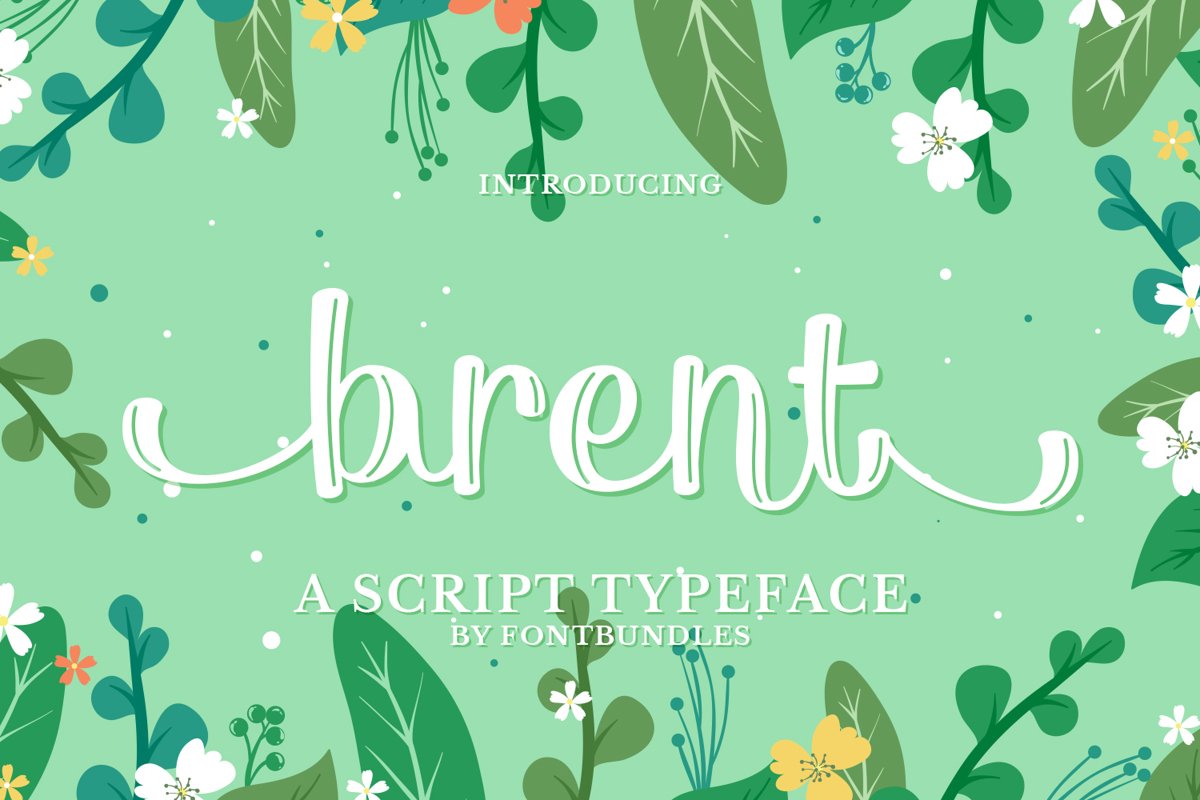
Brent
Brent is a script typeface. Perfect for display, quotes, branding, logo, logotype, wedding needs, floral, poster, product, print, merchandise, packaging, and many more.